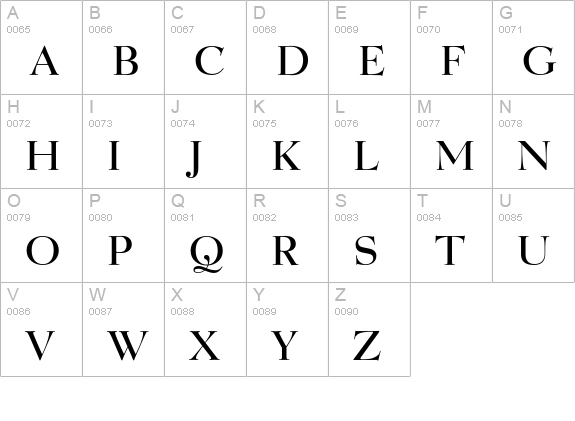
Belucian-Demi is a sub-bold, structured variant in the Belucian typeface family \xE2\x80\x94 well suited to sub-headlines and emphasised passages.
Belucian-Demi is a stunning and versatile font that exudes elegance and sophistication. With its bold and commanding presence, this typeface is perfect for making a striking statement in any design project. The strong and sturdy letterforms of Belucian-Demi are meticulously crafted with precision, resulting in a beautiful and timeless aesthetic. What sets Belucian-Demi apart is its unique blend of modernity and classic charm, making it suitable for a wide range of applications, from branding to editorial design. Whether you're creating a logo, poster, or website, Belucian-Demi is sure to leave a lasting impression on your audience. And the best part? Belucian-Demi is available for free download at FontsMarket.com. This means you can easily access this exquisite font and start using it in your projects right away. Don't miss out on the opportunity to elevate your designs with the sophistication and elegance of Belucian-Demi. Download it now and let your creativity shine!